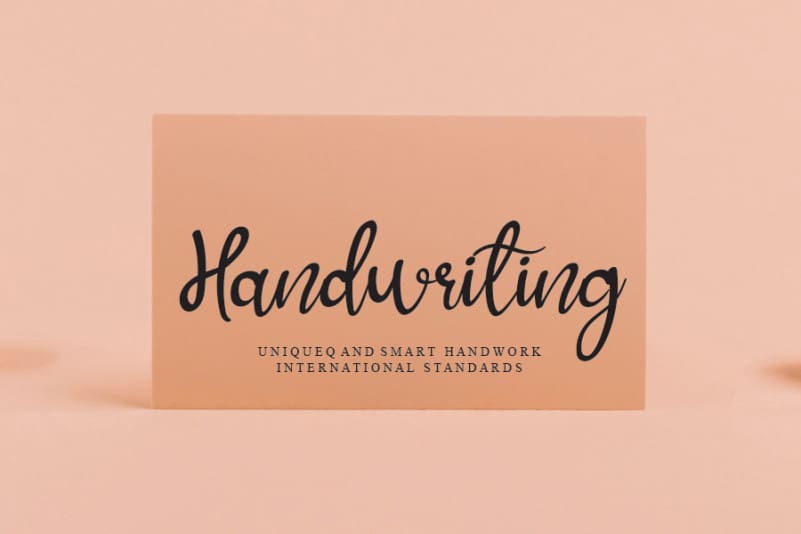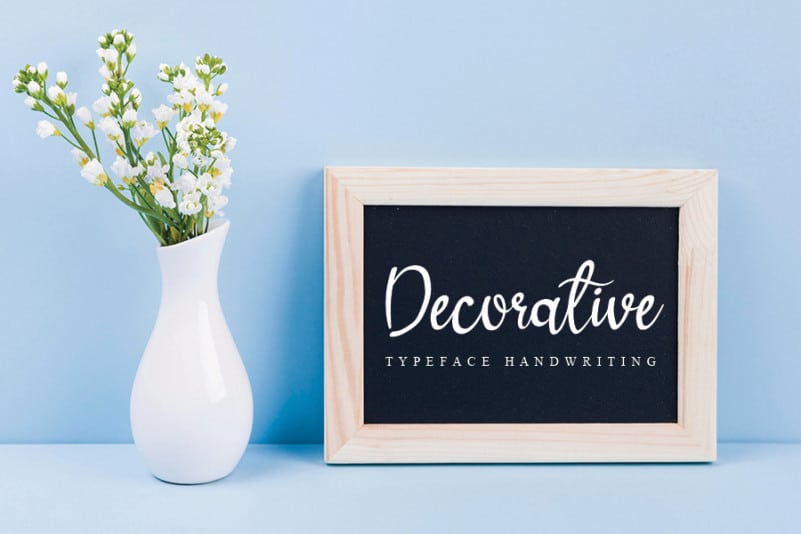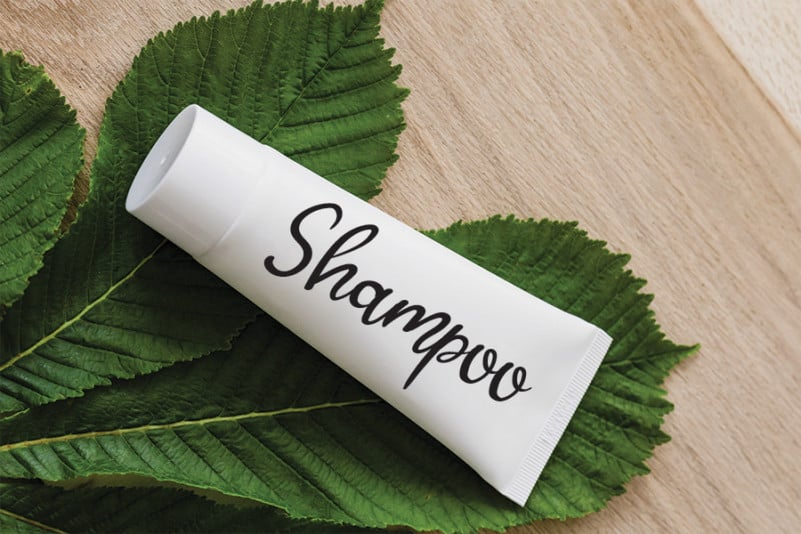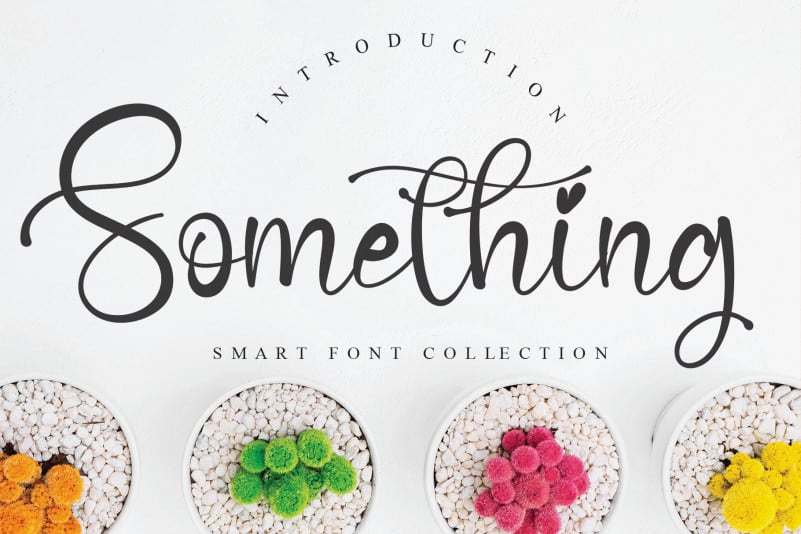
Bougainvillea Handwritten Font
Bougainvillea Font is a delicate and classy handwritten font. It looks stunning on wedding invitations, thank you cards, quotes, greeting cards, logos, business cards and every other design which needs a handwritten touch.